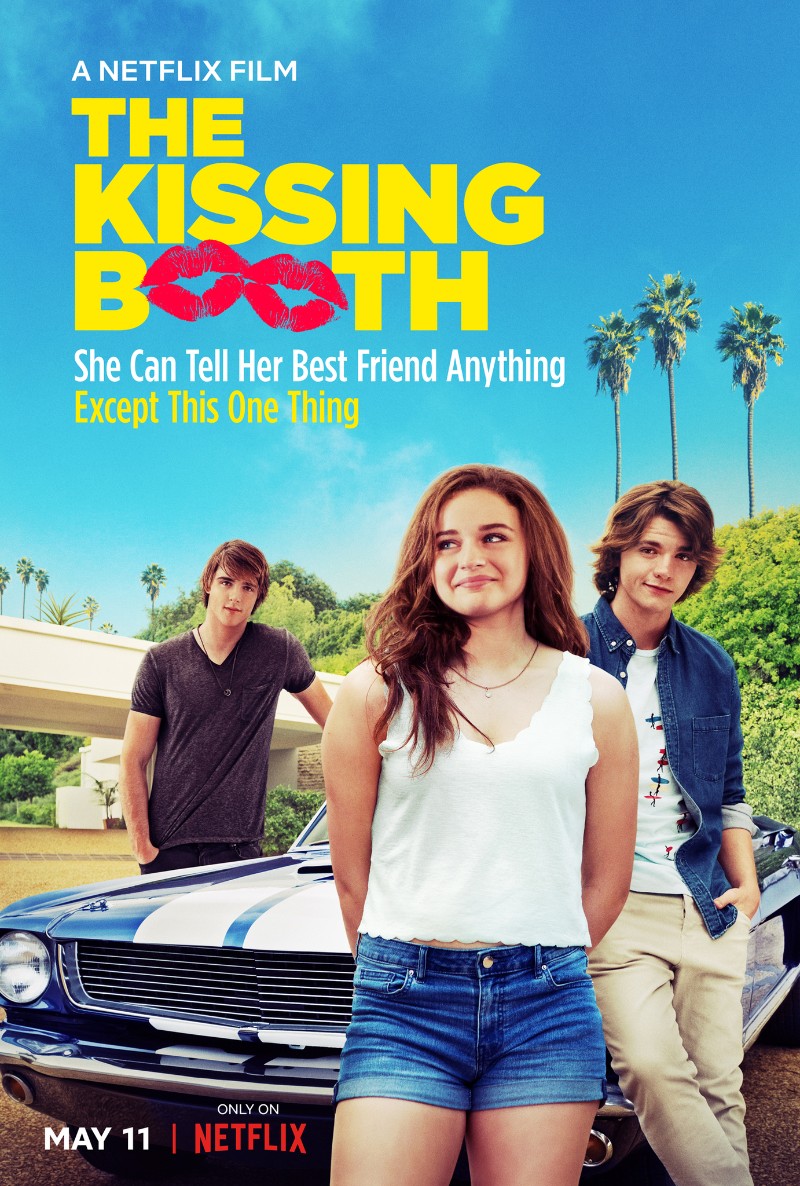
The Kissing Booth Font
ComedyThe Kissing Booth is a 2018 Netflix original romantic comedy film about a high school student who must navigate the tribulations of a forbidden romance with her best friend's older brother.
The film's title ''The Kissing Booth" was designed based on Gotham Ultra, created by Tobias Frere-Jones in 2000. Taglines are written in Gotham Narrow Medium font. You can view and get more information about the font family here.